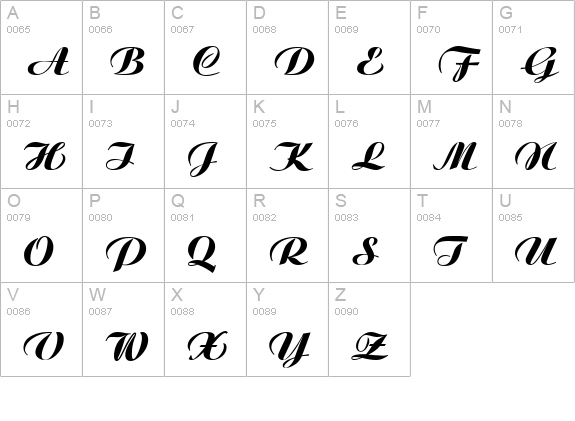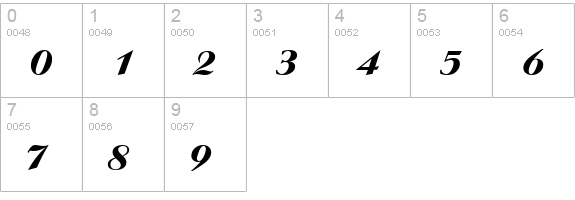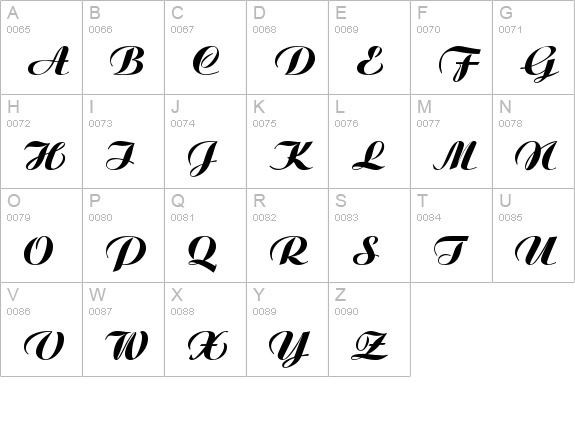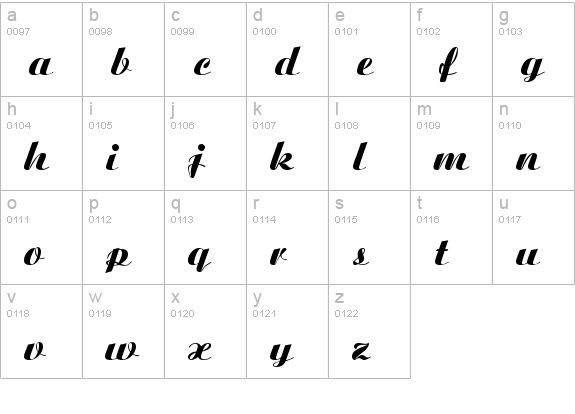
Agnes-Xbold-Regular Font Details
Agnes-Xbold-Regular is the standard, neutral variant in the Agnes typeface family \xE2\x80\x94 well suited to general body text, paragraphs, and standard typographic work.
Agnes-Xbold-Regular is a versatile and modern font that exudes elegance and professionalism. With its bold and eye-catching appearance, this font is perfect for creating impactful designs and grabbing attention. Whether you're working on a poster, logo, or branding project, Agnes-Xbold-Regular will effortlessly elevate your work to the next level. The clean lines and sharp edges of Agnes-Xbold-Regular make it a standout choice for any design project. Its distinct characteristics make it easy to read and easy to remember, making it ideal for headlines, titles, and other important text elements. What's even better is that Agnes-Xbold-Regular is available for free download at FontsMarket.com. This means you can start using this stunning font in your projects right away without having to spend a dime. So why wait? Download Agnes-Xbold-Regular today and add a touch of sophistication to your designs!